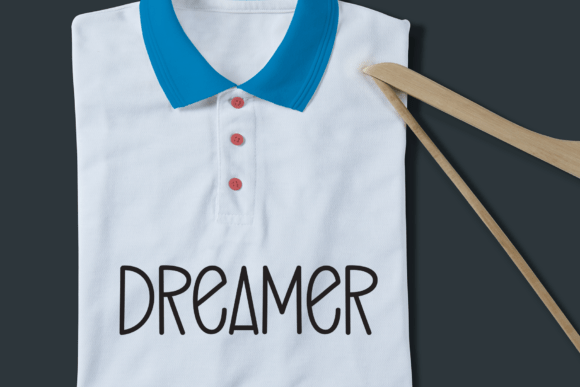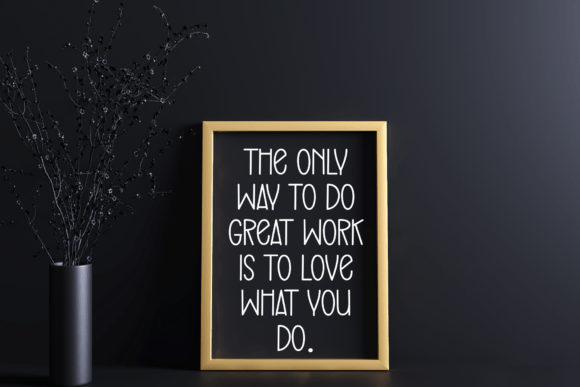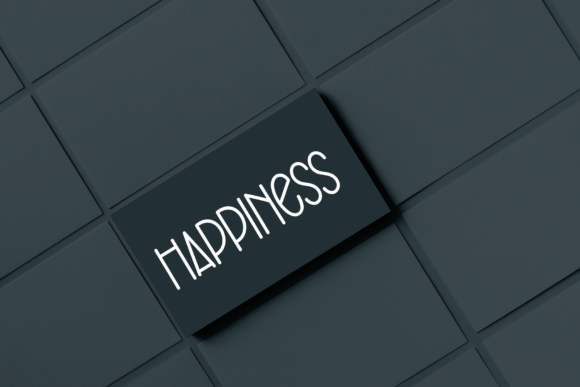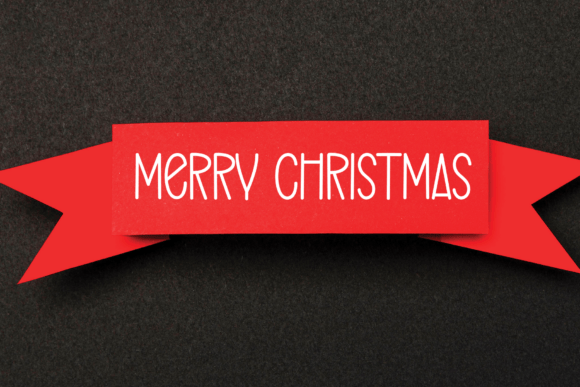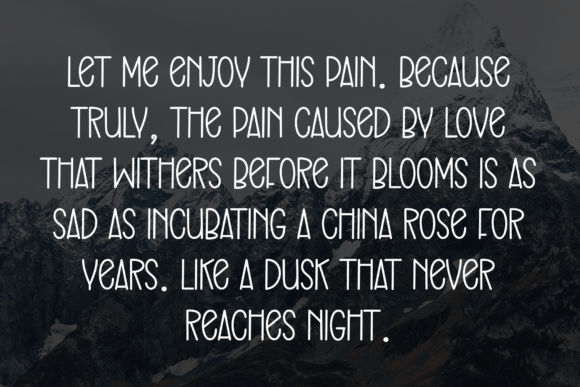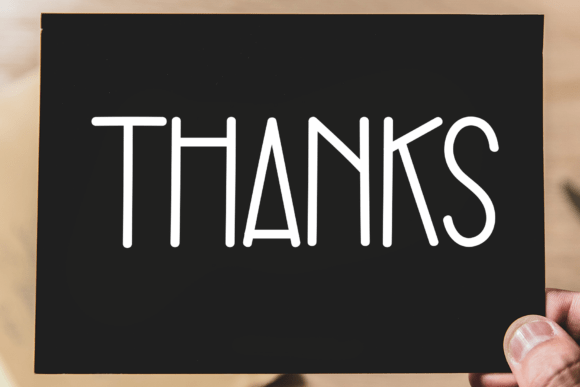
Unlocking the Essence of Minimalist Modernism: The Black Paper Font
In the realm of typography, the quest for the perfect font is a perpetual journey. For designers and crafters seeking to infuse their projects with a touch of sophistication and modern elegance, the Black Paper font emerges as a beacon of excellence. This clean and tall handwritten typeface is meticulously designed to capture the essence of minimalist modernism, making it an indispensable asset for those aiming to elevate their design work.
The Design Philosophy Behind Black Paper
The Black Paper font is grounded in the principles of minimalist design, characterized by its elongated letterforms and consistent monoline weight. This deliberate design choice lends the typeface a unique blend of elegance and readability, setting it apart in the crowded world of digital typography. The clean lines and unadorned aesthetic of Black Paper ensure that it remains versatile, capable of complementing a wide array of design contexts, from editorial design and fashion blogging to architectural branding and beyond.
Applications of the Black Paper Font
The versatility of the Black Paper font makes it an excellent choice for various design applications. Here are a few ways this typeface can be utilized to enhance your projects:
- Editorial Design: The clean and elegant appearance of Black Paper makes it perfect for use in magazines, newspapers, and digital publications, where readability and style are paramount.
- Fashion Blogging: For fashion bloggers and influencers, Black Paper offers a sophisticated and trendy look that can elevate the visual appeal of their content, making it more engaging for their audience.
- Architectural Branding: The font’s modern and minimalist aesthetic aligns well with the architectural style, making it suitable for branding, signage, and marketing materials in the architectural sector.
- Product Packaging: For designers looking to create minimalist product packaging that stands out, Black Paper provides a sleek and contemporary look that can help brands achieve a polished and professional image.
- Social Media Quotes: The Black Paper font can also be used to create visually appealing quotes for social media platforms. Its elegant and readable design ensures that your messages are conveyed with style and impact.
Key Features of the Black Paper Font
The Black Paper font comes with several key features that make it an attractive choice for designers:
- PUA-Encoded: The font is PUA-encoded, which means it offers effortless access to all glyphs, swashes, and alternate characters. This feature allows for greater flexibility and creativity in your design work.
- Breathable and Airy Feel: Despite its elegant appearance, the Black Paper font provides a breathable, airy feel to your layouts. This ensures that your designs do not feel overly crowded or heavy, maintaining a clean and sophisticated look.
- Confident and Hand-Drawn Personality: The Black Paper typeface strikes a perfect balance between a confident, hand-drawn personality and a polished, professional aesthetic. This unique blend makes it an excellent choice for designers seeking to add a human touch to their work.
In conclusion, the Black Paper font is a versatile and elegant typeface that embodies the principles of minimalist modernism. Its clean design, tall letterforms, and consistent monoline weight make it an excellent choice for a wide range of design applications. Whether you are working on editorial projects, fashion blogs, architectural branding, or product packaging, the Black Paper font offers a sophisticated and professional aesthetic that feels both human and polished. With its PUA-encoded feature, designers have the flexibility to explore various creative avenues, making this font an invaluable addition to any designer’s toolkit.
By incorporating the Black Paper font into your design projects, you can achieve a level of sophistication and elegance that resonates with your audience. Its unique blend of modern style and readability ensures that your work stands out in a crowded digital landscape, making it an indispensable asset for designers and crafters aiming to leave a lasting impression.